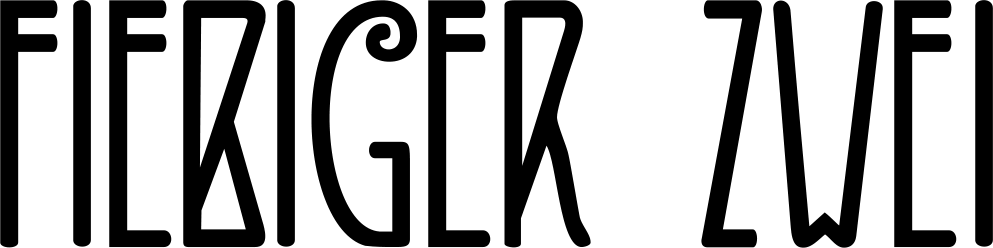
DK Fiebiger Zwei Font
In addition to being elegant, DK Fiebiger Zwei has a youthful spirit. This all-caps art deco font banks on elongated characters to pleasantly present itself in the reader’s eyes. We offer you this one as an excellent font choice for banners, posters, headlines, magazines, print, and so on.